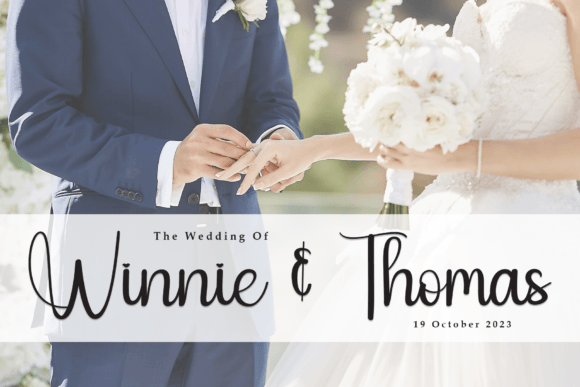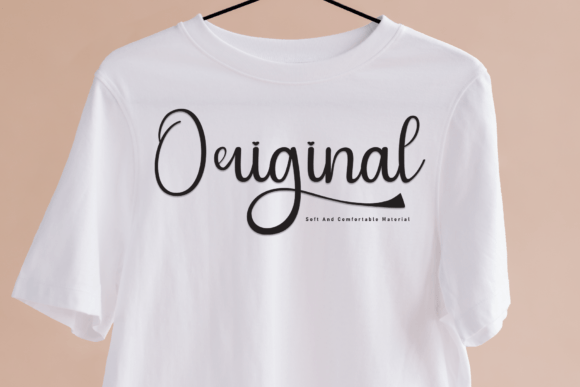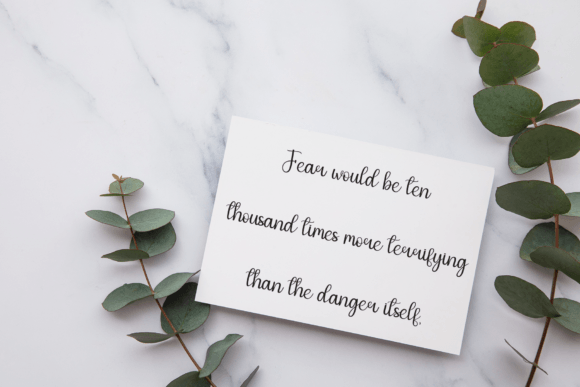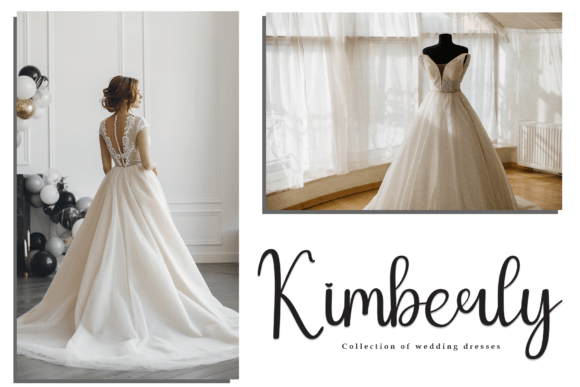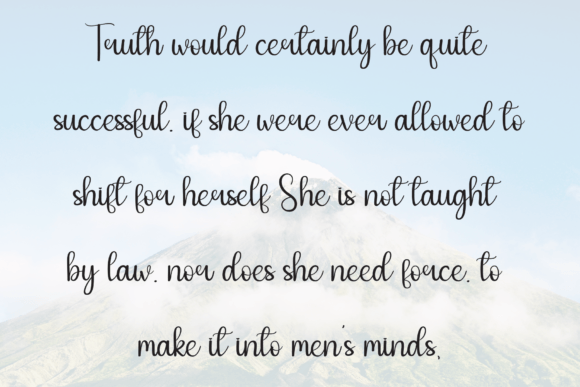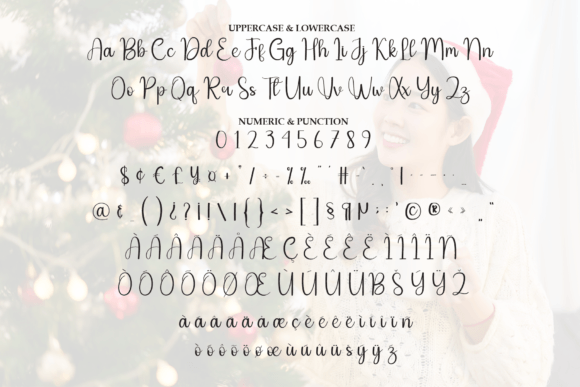
Deck the Halls with Holiday Cheer: Discover the Magic of Christmas Happynes Font
As the holiday season approaches, I find myself reminiscing about the joy and excitement of decorating my childhood home. There’s something special about transforming a space with twinkling lights, garlands, and festive decorations that evokes a sense of warmth and happiness. It’s this same feeling that inspired the creation of the Christmas Happynes Font – a sweet and friendly handwritten display font designed to add a touch of whimsy to your holiday designs.
Whether you’re crafting wedding invitations, holiday cards, or social media graphics, the Christmas Happynes Font is the perfect addition to your design toolkit. Its cute and fun aesthetic is sure to bring a smile to your clients’ faces and make your designs stand out from the crowd. As a designer, you know that the right font can make all the difference in creating a cohesive and engaging visual brand – and the Christmas Happynes Font is a valuable addition to any holiday design project.
Key Features of Christmas Happiness Font
- Unique Characteristics: Hand-drawn design, playful and festive feel, perfect for holiday-themed projects, includes uppercase and lowercase letters, numbers, and punctuation marks
Designer Review: Christmas Happynes Font
First impressions are everything, and I have to say, Christmas Happynes Font is a real showstopper ✨. The moment I laid eyes on it, I was drawn in by its playful, cursive script. It’s the perfect font for any festive project, and it’s sure to put your audience in the holiday spirit.
The font’s versatility is another major selling point ✨. It can be used for a wide range of applications, from posters and flyers to social media graphics and even web design. The font’s bold, eye-catching lines make it perfect for grabbing attention and creating a sense of excitement.
- Playful, cursive script that’s perfect for festive projects
- Versatile and suitable for a wide range of applications
- Bold, eye-catching lines that grab attention
- May not be suitable for formal or professional projects
- Some characters may be difficult to read at smaller sizes
- Not ideal for projects that require a more subtle or understated approach
Overall, I’m really impressed with Christmas Happynes Font ✨. It’s a fun, energetic font that’s sure to add some holiday cheer to any project. While it may have some limitations, it’s definitely worth considering for any festive design needs.
Tips for Getting the Most Out of the Christmas Happiness Font
1. Experiment with different font sizes and styles to achieve the desired look.
2. Use the font in conjunction with other festive graphics and design elements to create a cohesive look.
3. Consider using the font for titles, headings, and other prominent text elements to add emphasis and visual interest.
1. Holiday greeting cards and invitations.
Alternatives to Christmas Happynes Font
The Great Vibes Font is a beautiful, handwritten font that is perfect for adding a touch of elegance and sophistication to your designs. It is ideal for use in wedding invitations, greeting cards, and other festive designs. Compared to Christmas Happynes Font, Great Vibes Font has a more subtle and refined look, making it suitable for a wider range of applications.